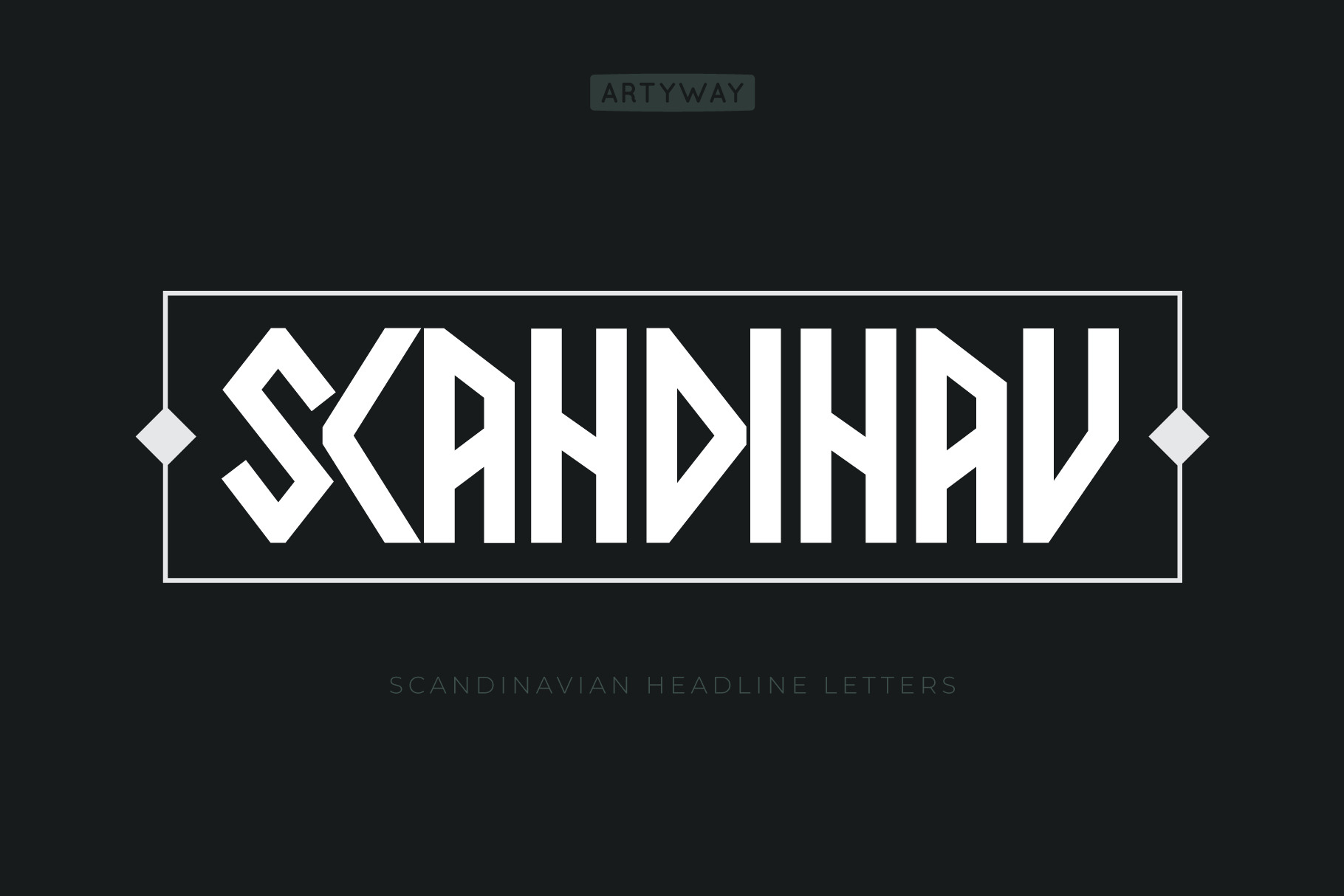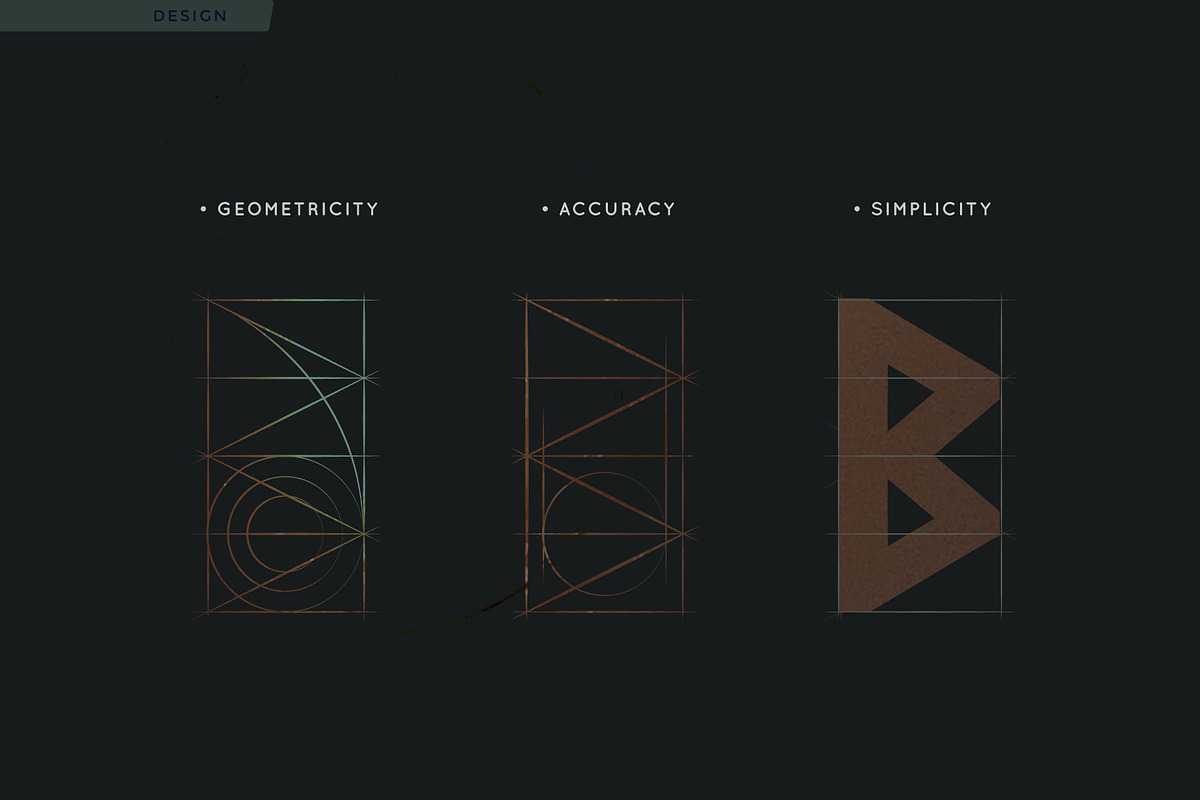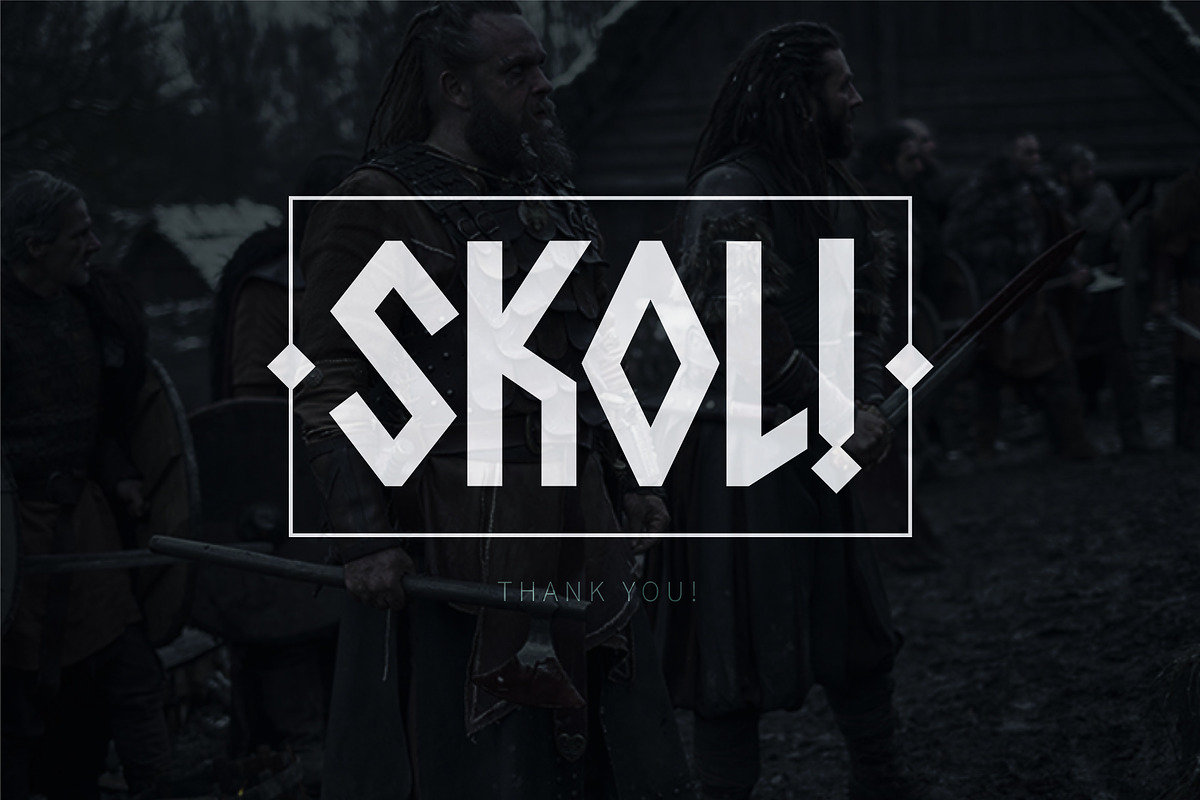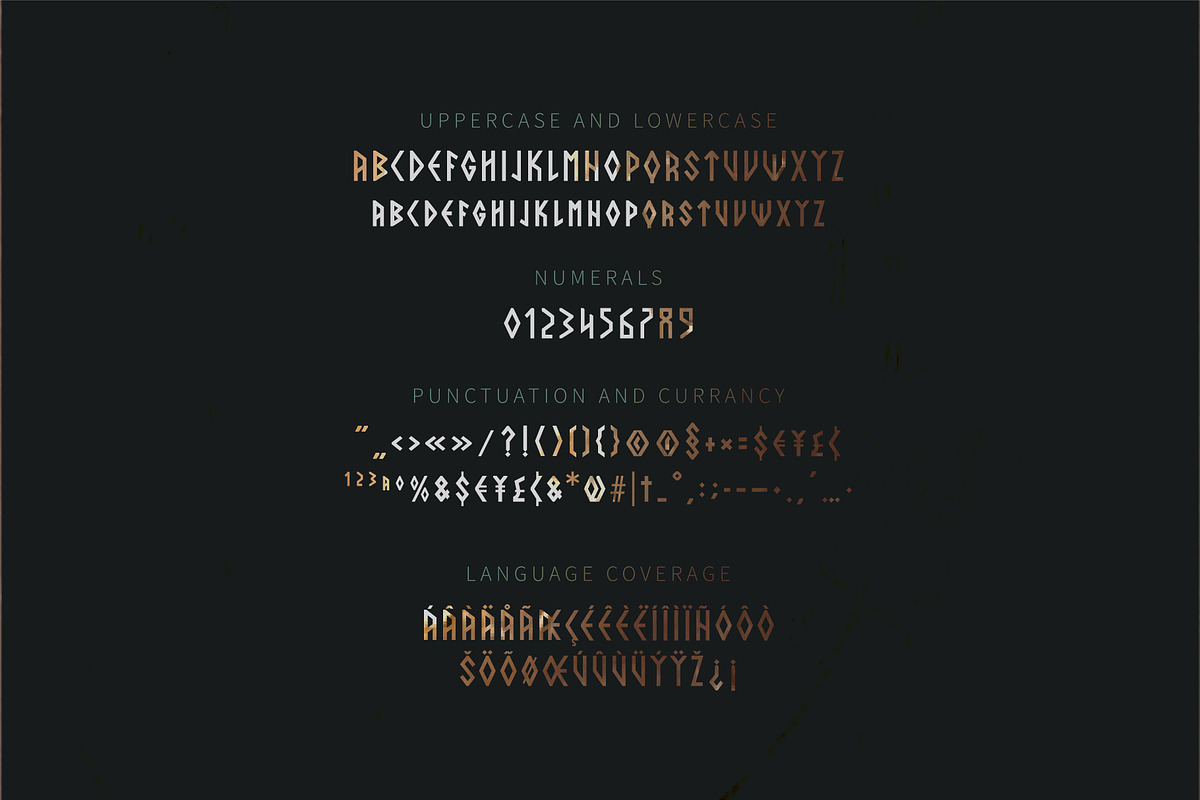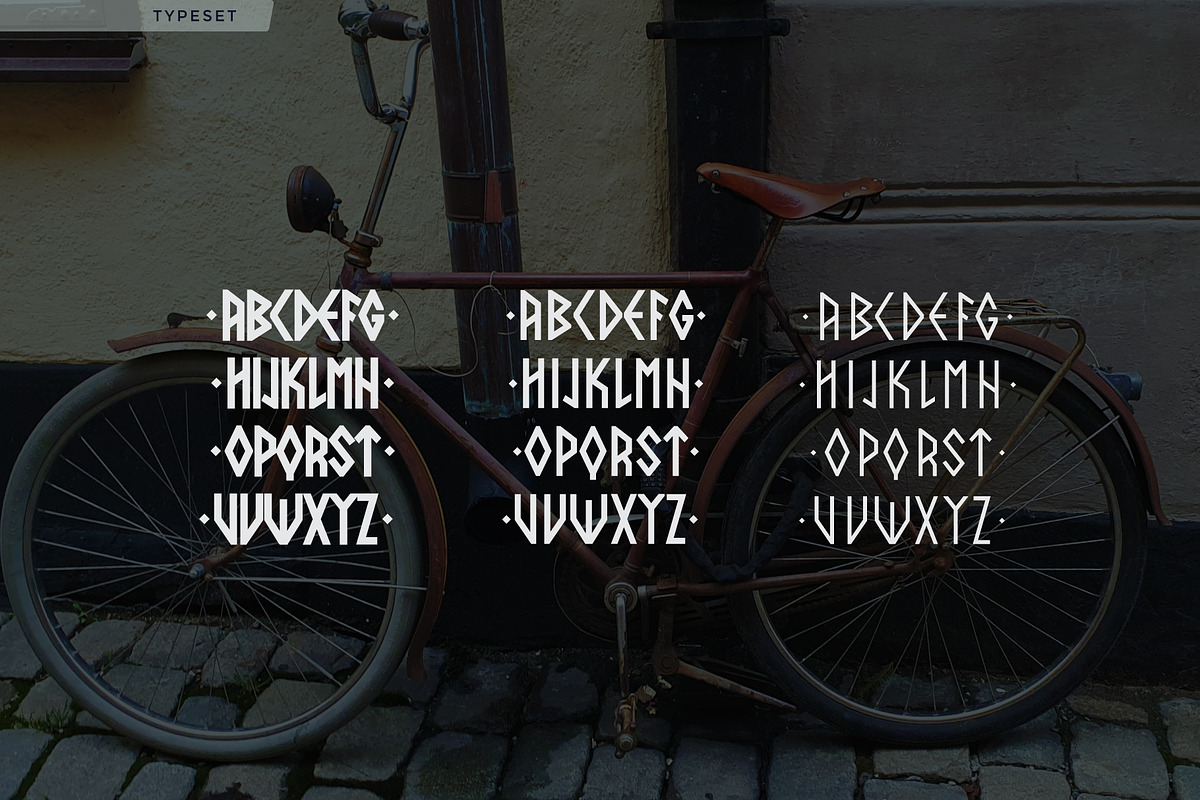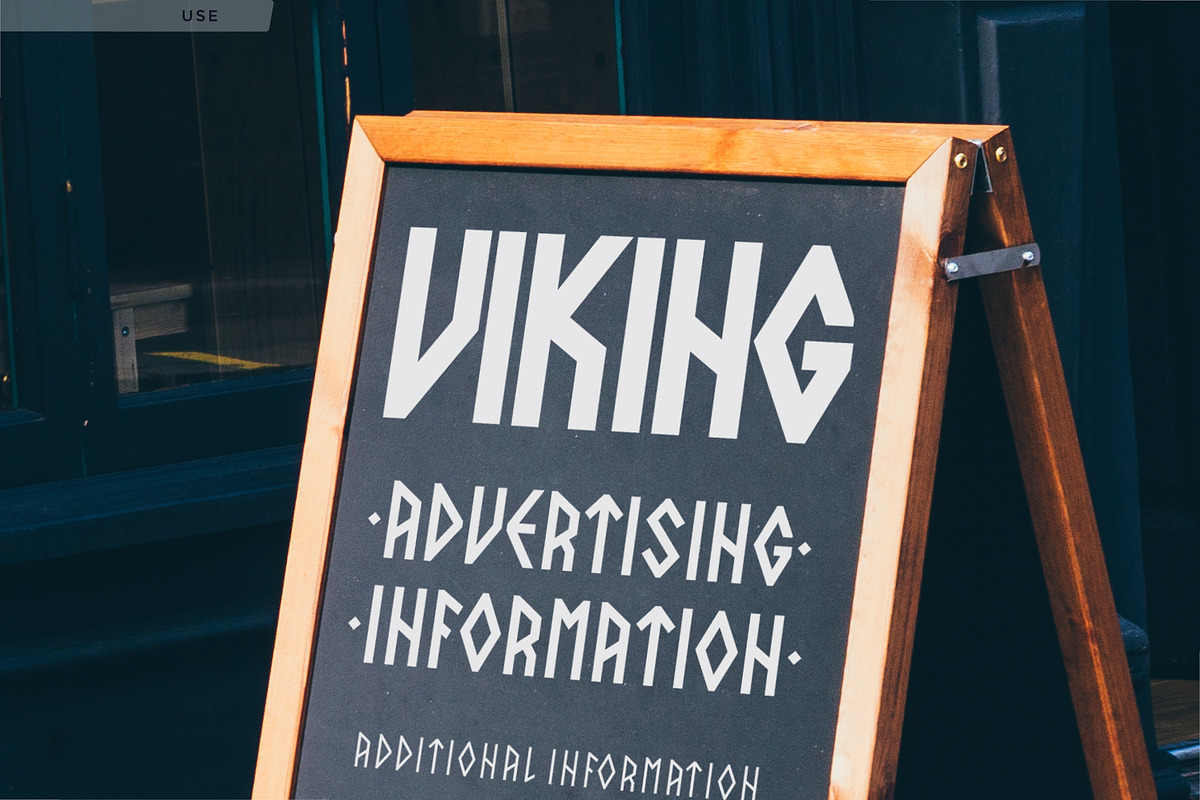
Scandinav Headline Font
Introducing Scandia, a unique geometric Scandanavian font with a beautiful and simple runic style to help you bring the soul of the Nordic region into your design works!
Based on Scandinavian runes and elegant geometric forms, this unique typeface has 3 weights to fit your needs. It includes some multilingual support, uppercase letters, numbers, and punctuation.
It works great in titles, logos, and short quotes in modern and traditional projects. Check it!